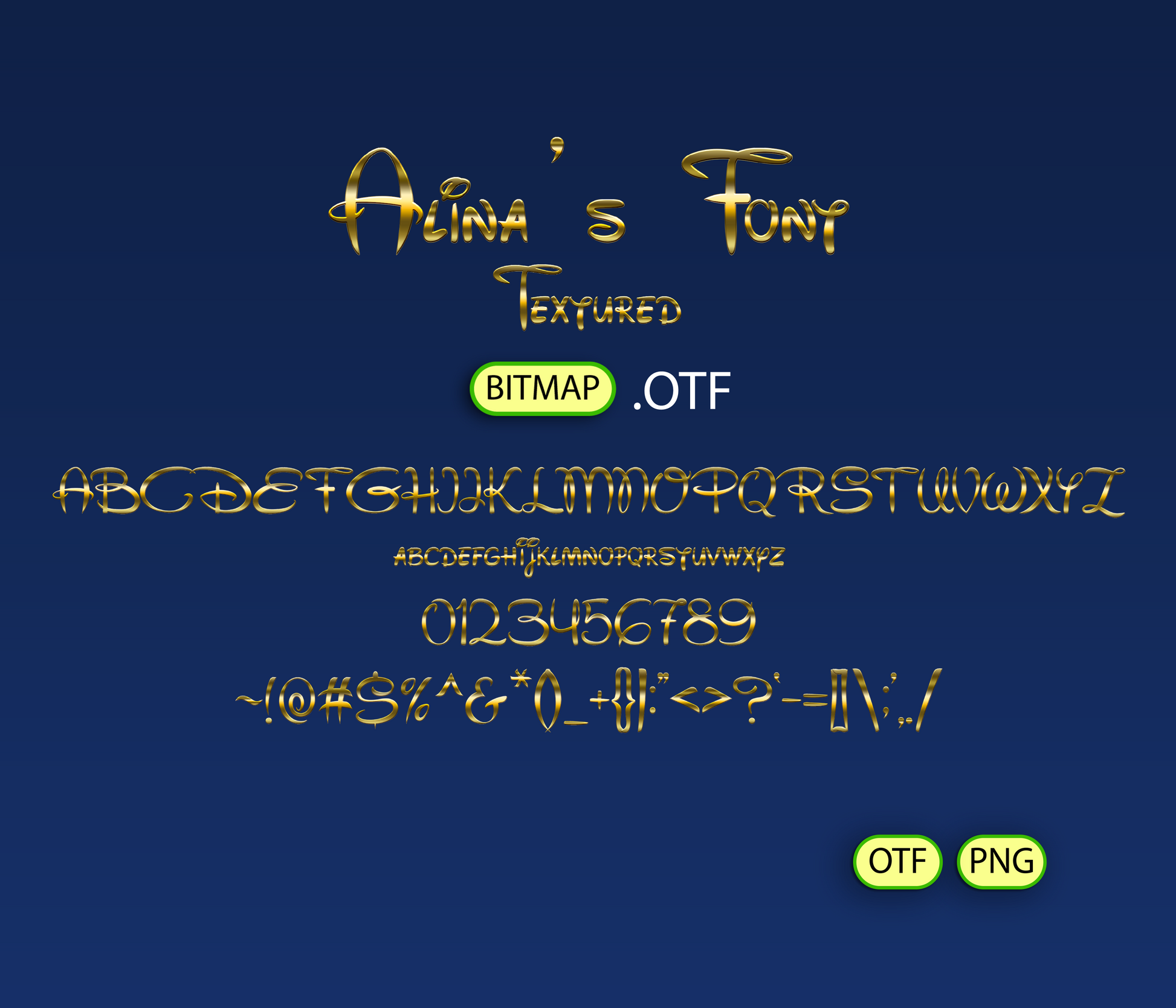
Magic Kingdom Font Textured
Step into the enchanted world of beloved storytelling with our Magic Kingdom Script font, capturing the essence of timeless animation and whimsical wonder. Perfect for fantasy fans, party planners, event organizers, and designers, this font brings the charming, dreamy spirit of classic animated tales to your projects. Create magical materials, merchandise, or digital content with the heartwarming joy of storybook adventures.
Our Magic Kingdom Script font features flowing, enchanted lines and fairy-tale characters reflecting the world of animated wonder. Ideal for:
1. Event Promotions: Create magical invites, posters, and banners for fairy-tale parties, fantasy events, and themed celebrations that capture the spirit of animated classics
2. Merchandise Design: Perfect for t-shirts, posters, and accessories that showcase the whimsical side of storytelling
3. Digital Media: Enhance websites, blogs, and social media with enchanting headers and graphics that express the joy of fairy-tale magic
4. Animation Content: Add authentic flair to fan art, storybook designs, and creative projects inspired by classic animation
5. Personal Projects: Bring magical charm to scrapbooking, DIY crafts, and home decor inspired by the world of beloved stories
Our font pays tribute to the beloved world of classic animation, empowering your designs with its enchanted and whimsical spirit. Whether crafting promotional materials, designing merchandise, or adding a magical touch to personal projects, this font communicates the timeless essence of fairy-tale wonder. Ready to inject storybook magic into your creations? This font is your key to exciting, impactful design.